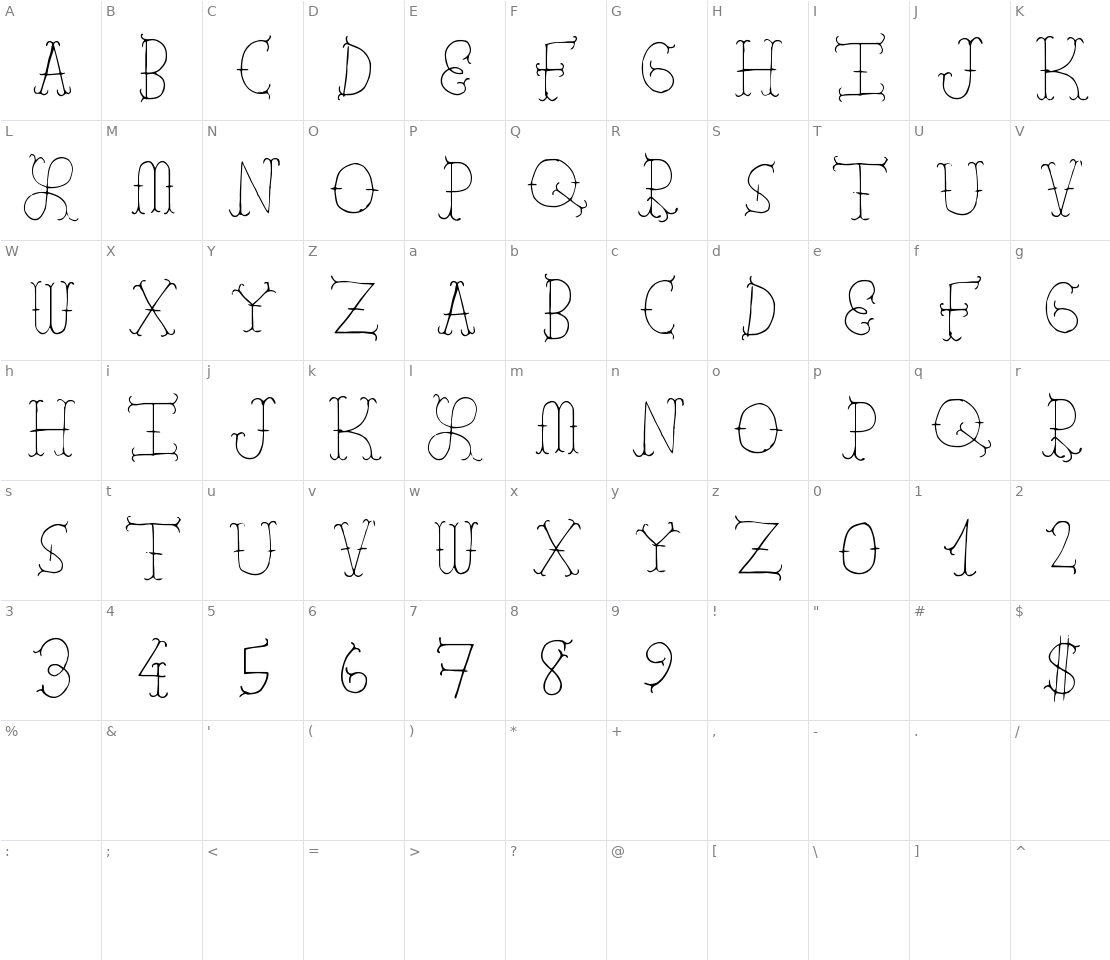
Farm Barns
Farm Barns is a thin, curly display face from Xerographer Fonts with looping, ornamental letterforms that feel both rustic and whimsical. The strokes are light and playful, with an almost vine-like quality to the curls that gives it a handcrafted, countryside charm. Best kept to headlines, signage, and packaging where its quirky personality can come through without overwhelming the layout.